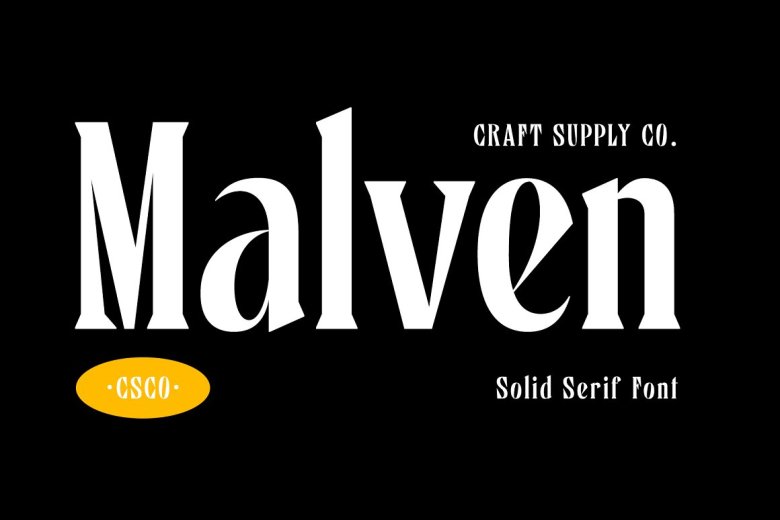
Malven Font
Malven Font is a modern serif features thin stroke, low-contrast modulation, and a small serif that give it an elegant and classy appeal. It can be ideal for almost every design project type, including print materials. I am sure that with this font and your imagination, you will make your project more beautiful than ever before.
Whether you are going to make greeting cards or design a package, or even brand identity, craft design, any DIY project, book title, wedding font, pop vintage design, retro architecture, etc. or for anything else, it can be for your art / design project. Do you want your project to look pretty as well as trendy? Feel free to use this Malven typeface.
Malven Bold Serif Font